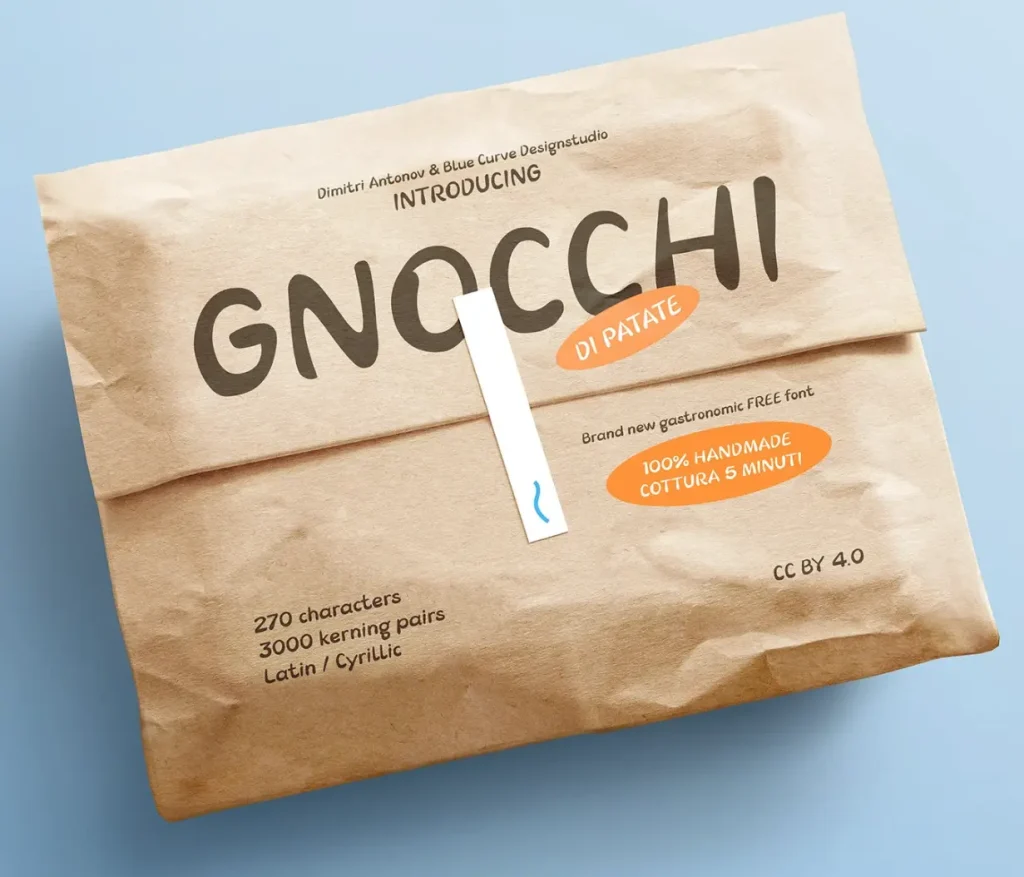
Finding a food-themed font that isn’t cheesy is hard. Most look like bad chalkboard art or generic script.
Gnocchi Regular is different. It’s a dedicated gastronomic typeface that feels organic yet structured enough for actual layout work.
Why I Like It
I like fonts that have a clear, usable personality. Gnocchi isn’t just another rounded sans-serif. The letterforms have a soft, doughy quality that actually fits the name. It’s distinctive without being a novelty, which is a hard balance to strike. Works great at large sizes.
Key Features
- Unique, chunky display style. Built for headlines, logos, and packaging.
- Distinctive letterforms. Avoids looking like every other free rounded font.
Use Cases
- Artisanal food packaging (bread bags, pasta labels, sauce jars).
- Restaurant and café menu headings.
- Food truck or farmer’s market branding.